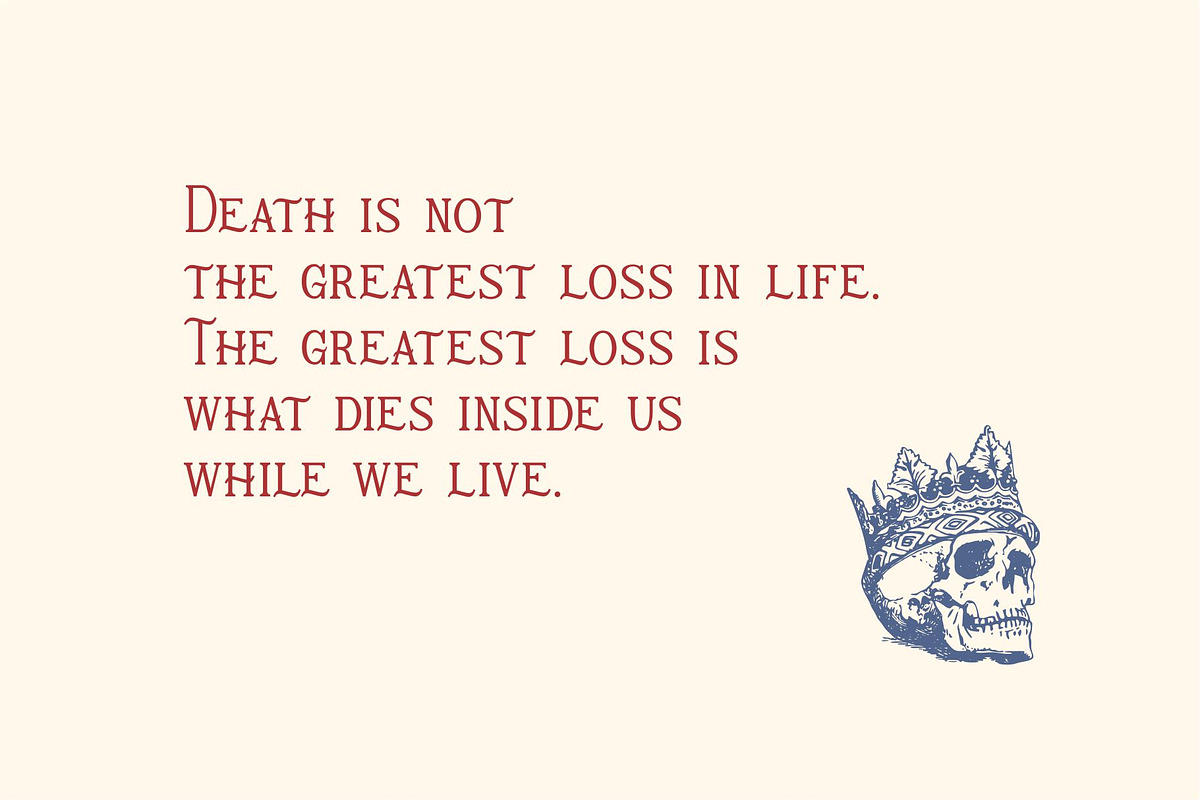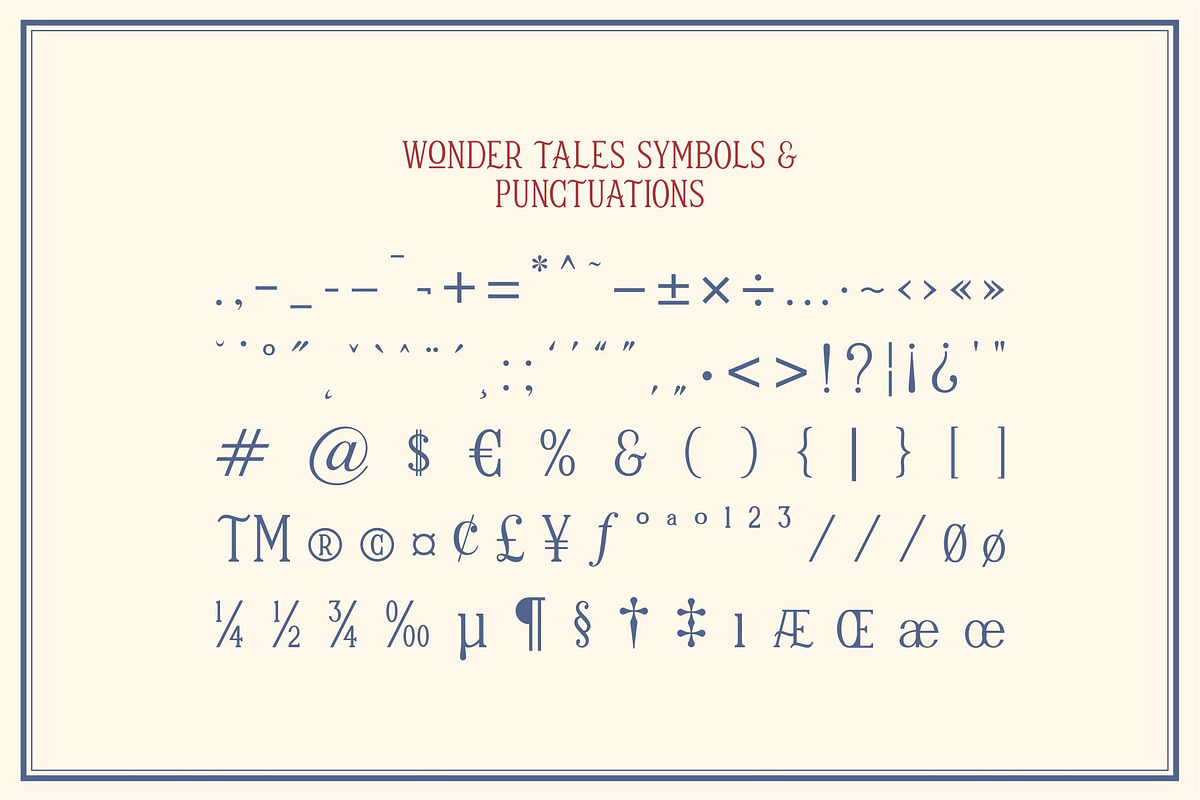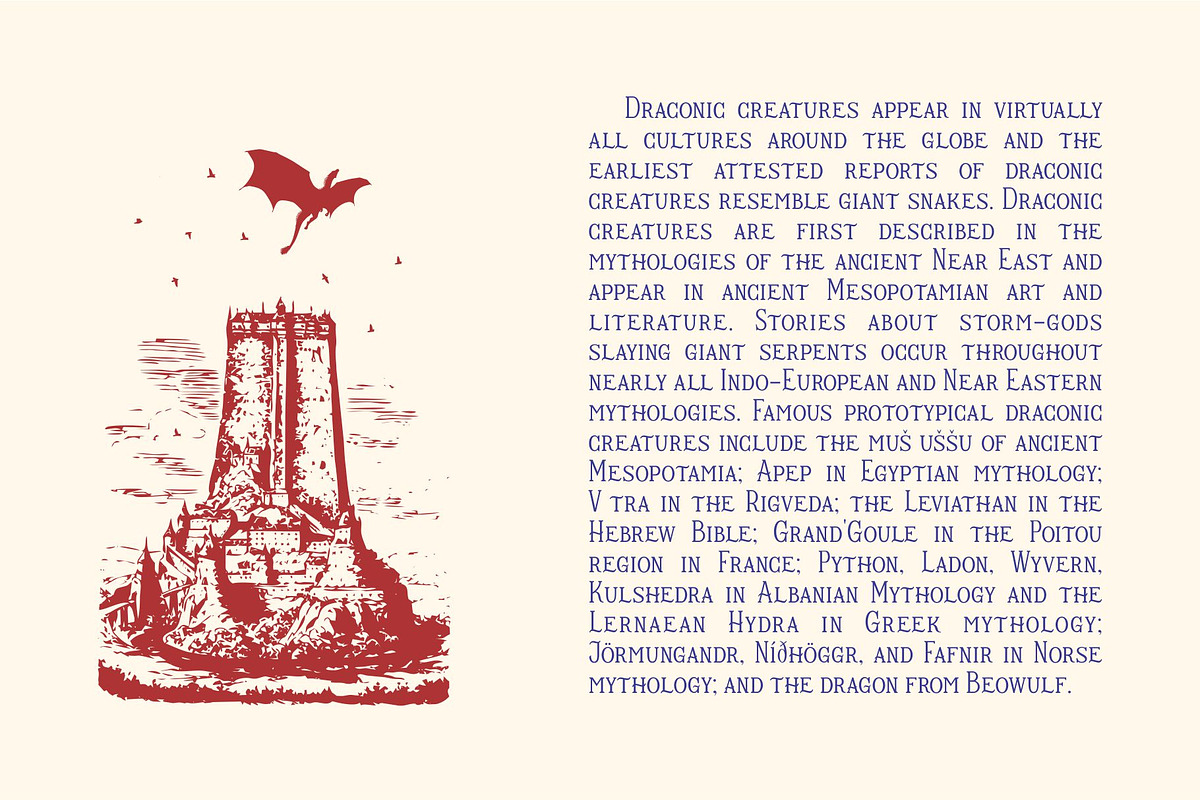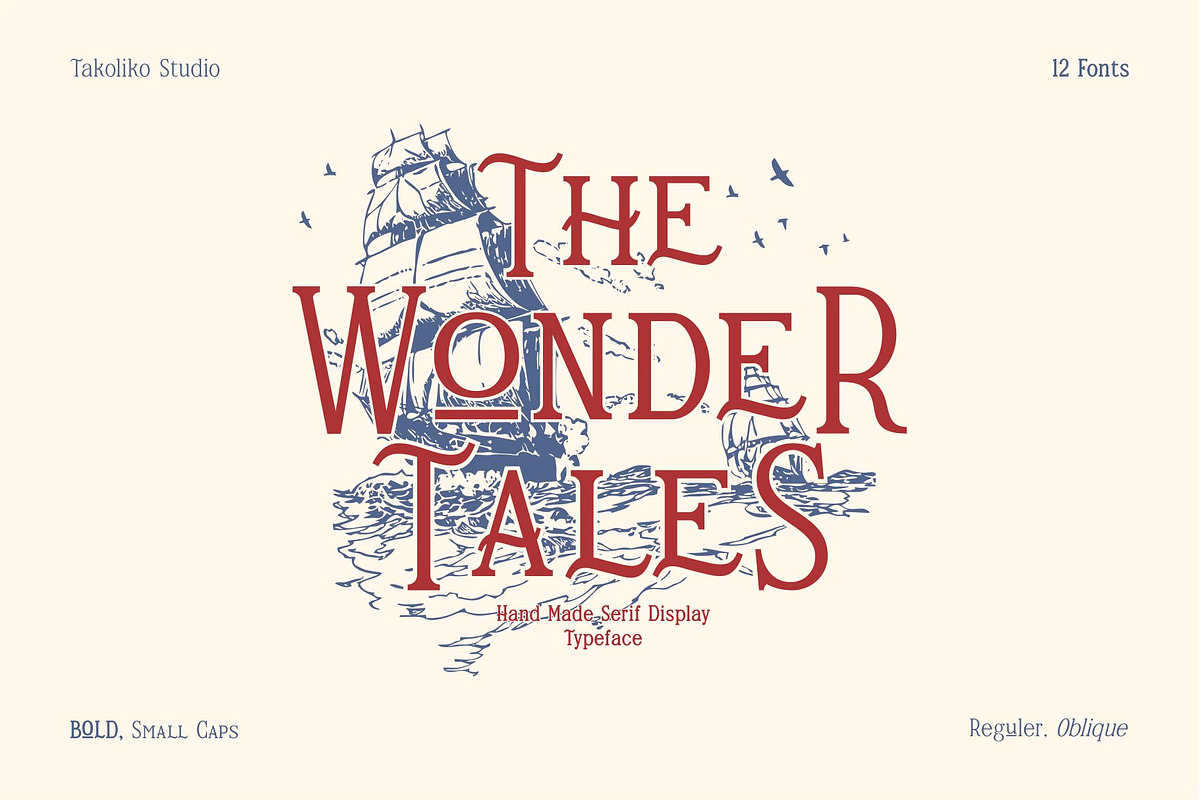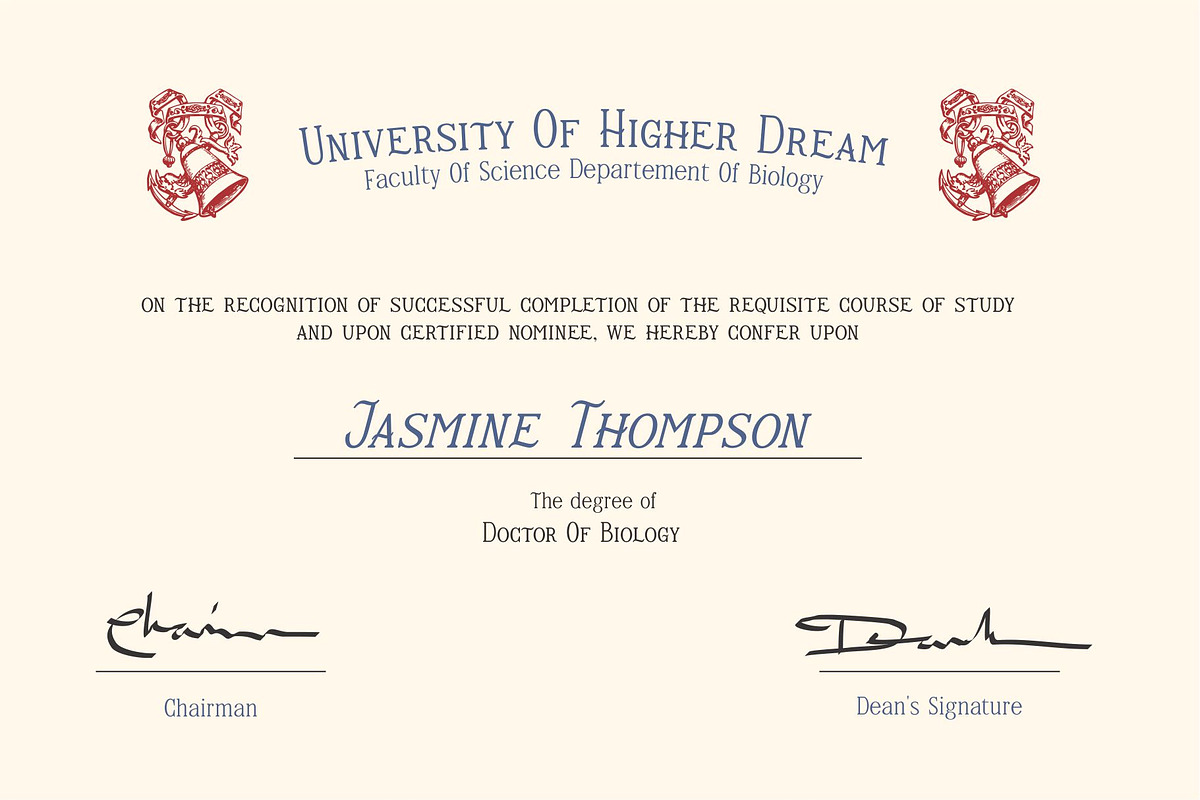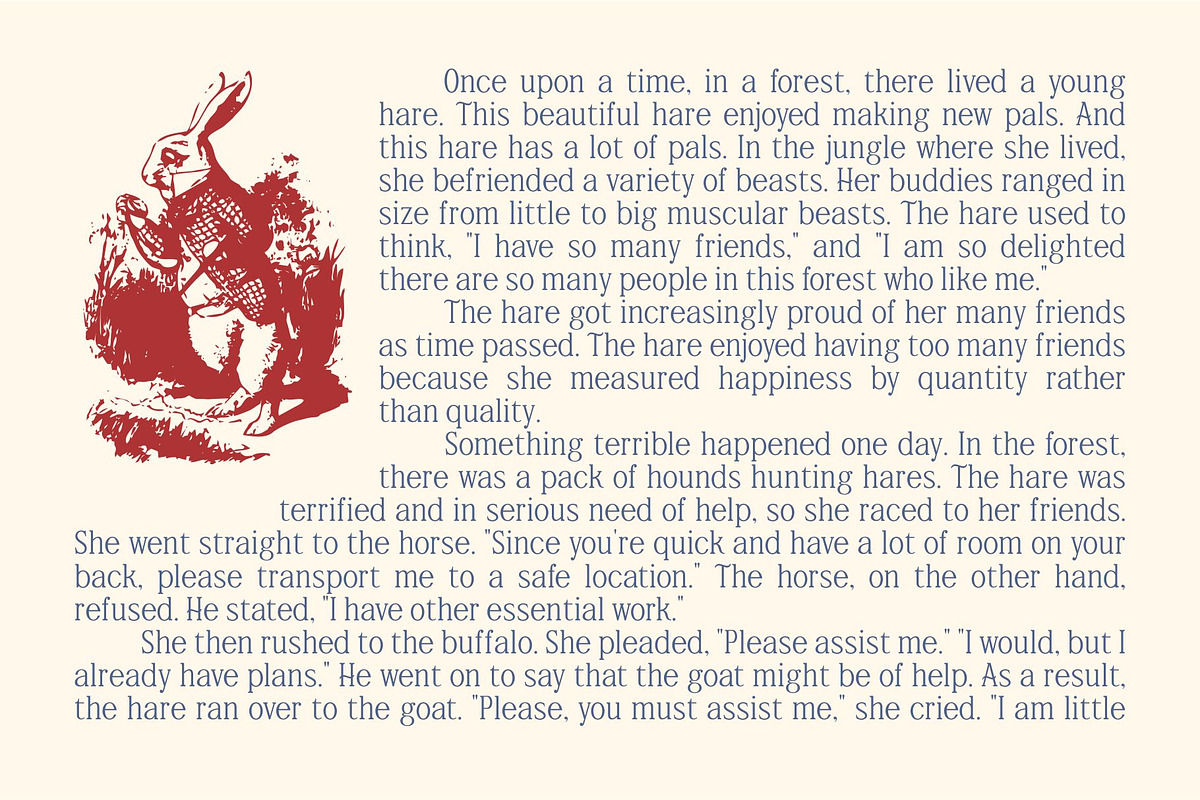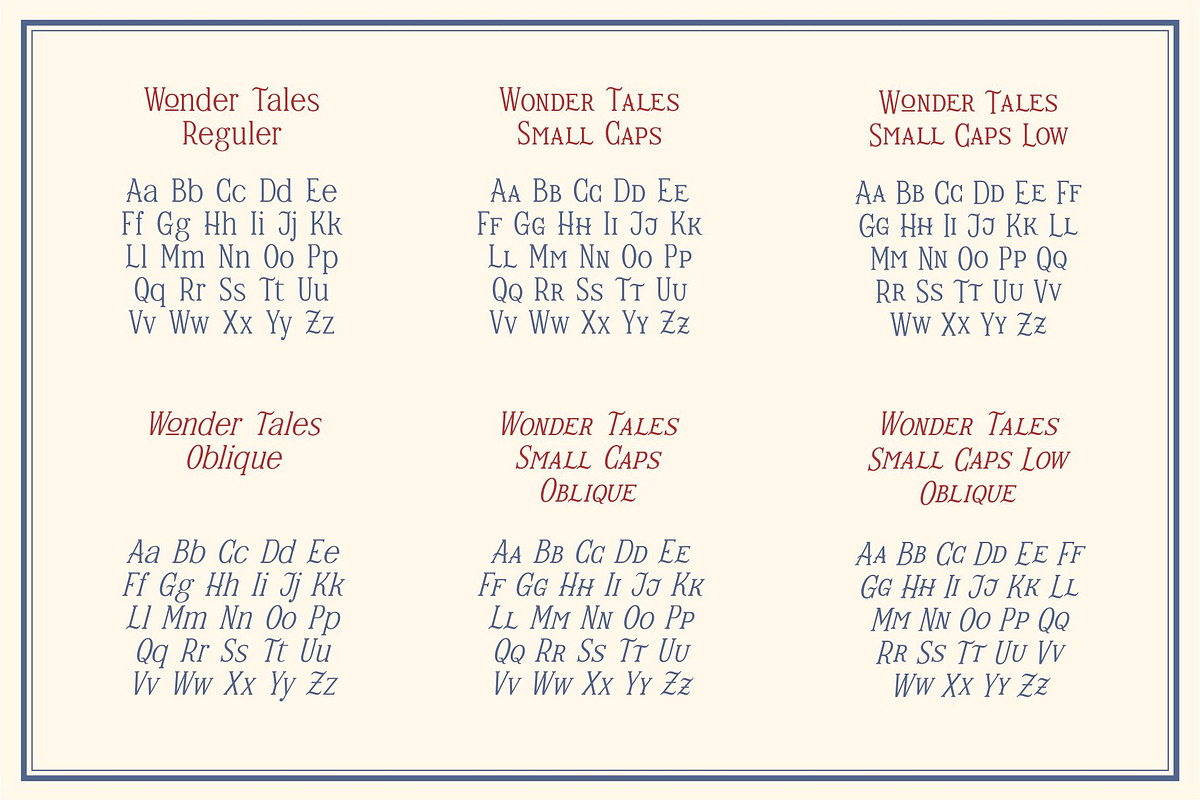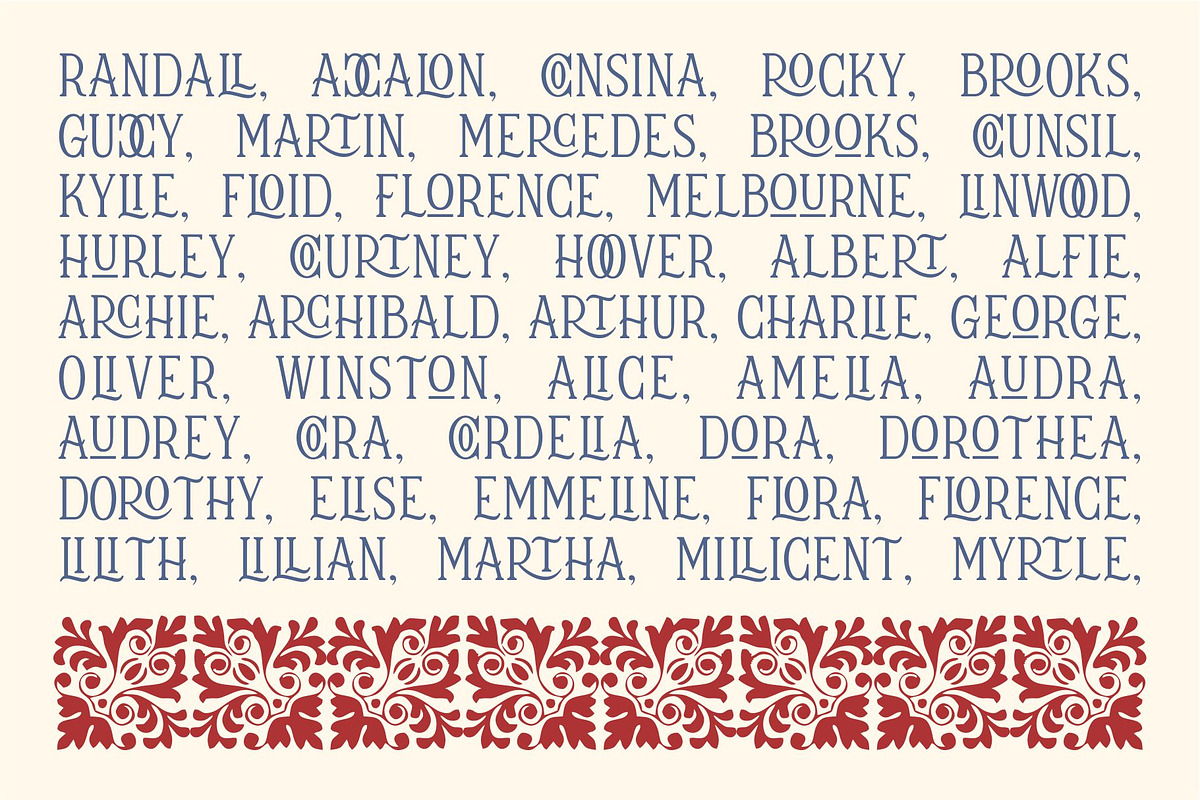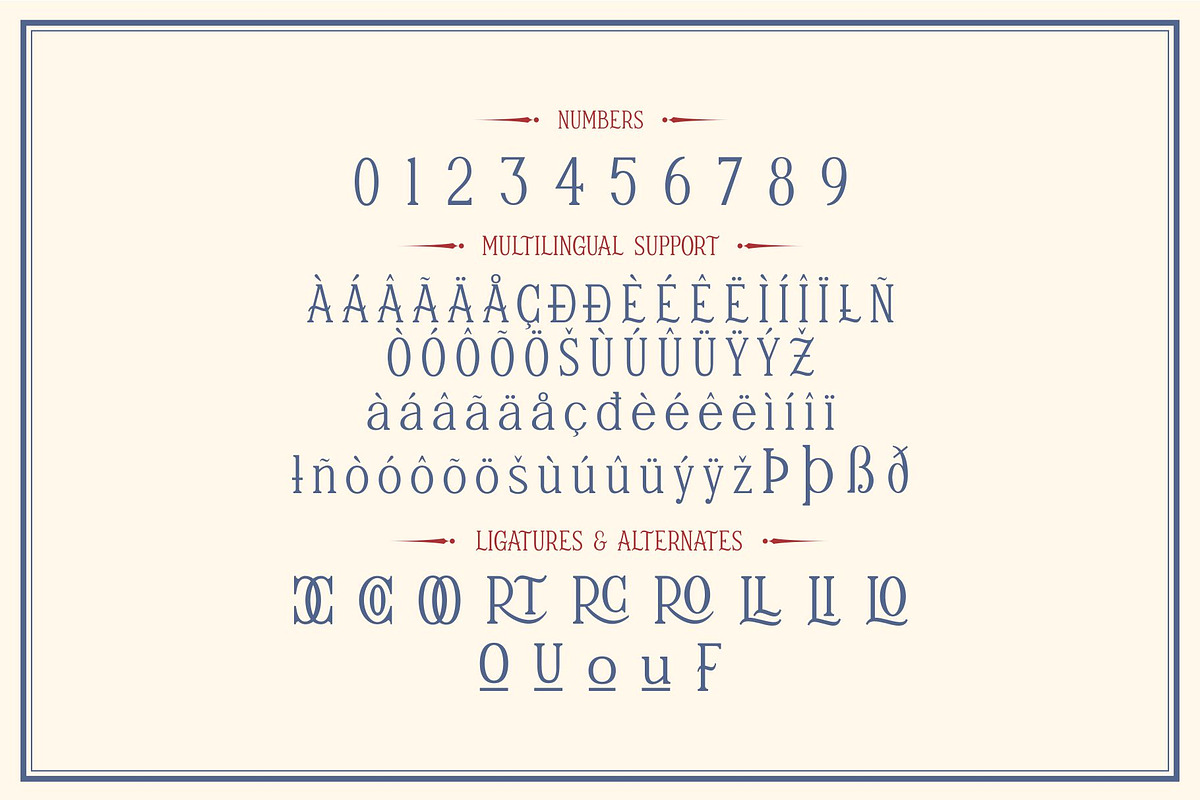
Wonder Tales
Wonder Tales is a whimsical, magical, mysterious, wizardly serif font. It has a little bit of vintage and wise aura. It came with reguler, bold, small caps and oblique style. It has alternates, ligatures and support multilingual language. It can easily be matched to an incredibly large set of projects and good for communicating your brands.